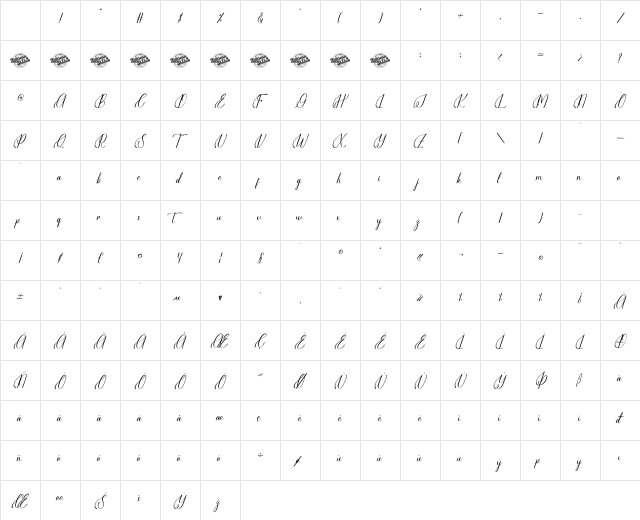
Complete Elsantie Perilyna DEMO VERSION Regular glyph index. Displaying only characters natively supported by Elsantie Perilyna DEMO VERSION Regular font.
Elsantie Perilyna DEMO VERSION is a composed and adaptable typeface that performs quietly and consistently across a wide range of design contexts.